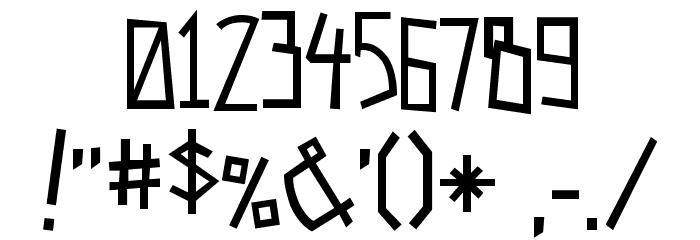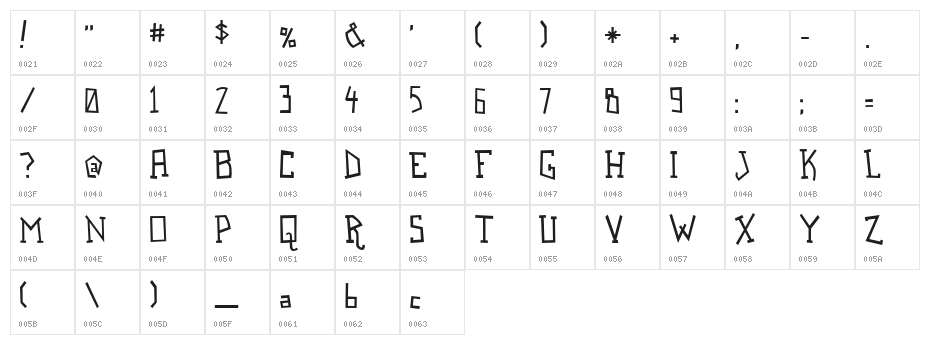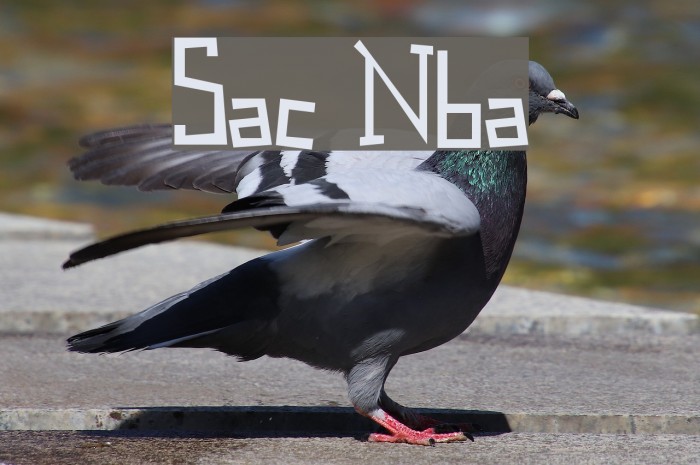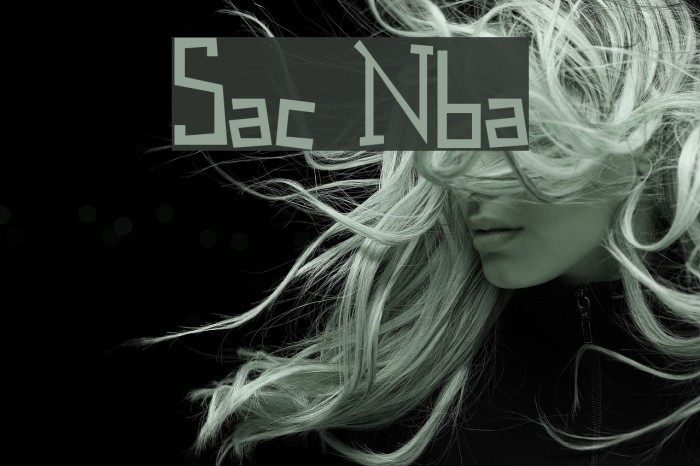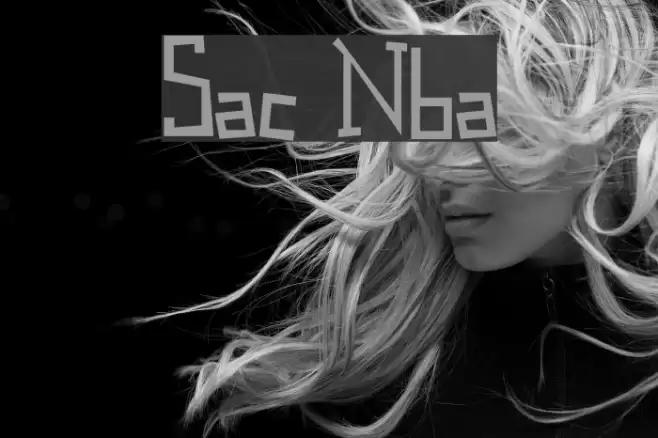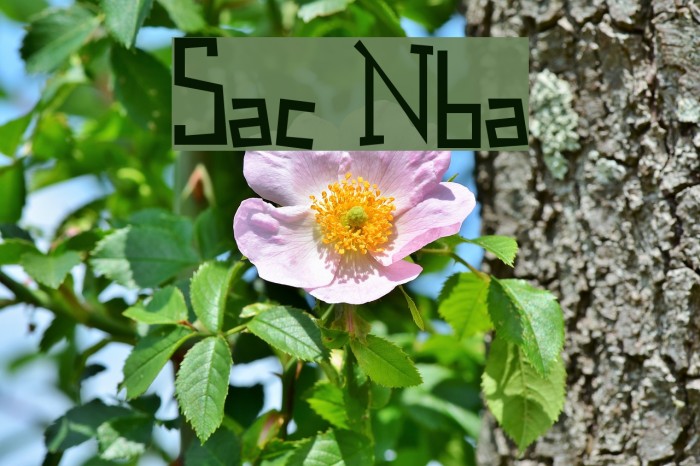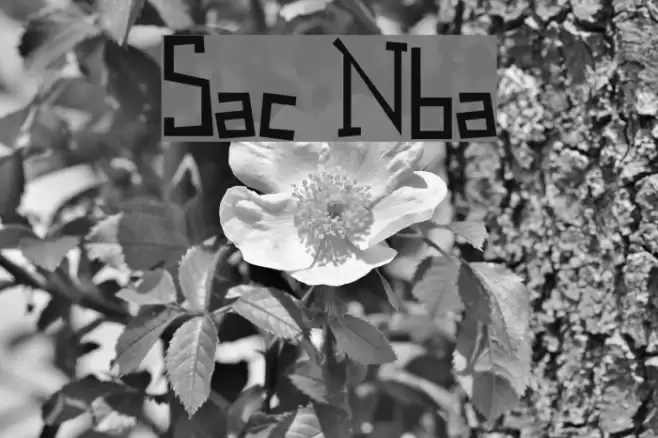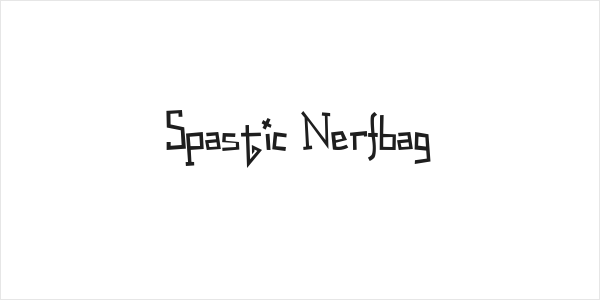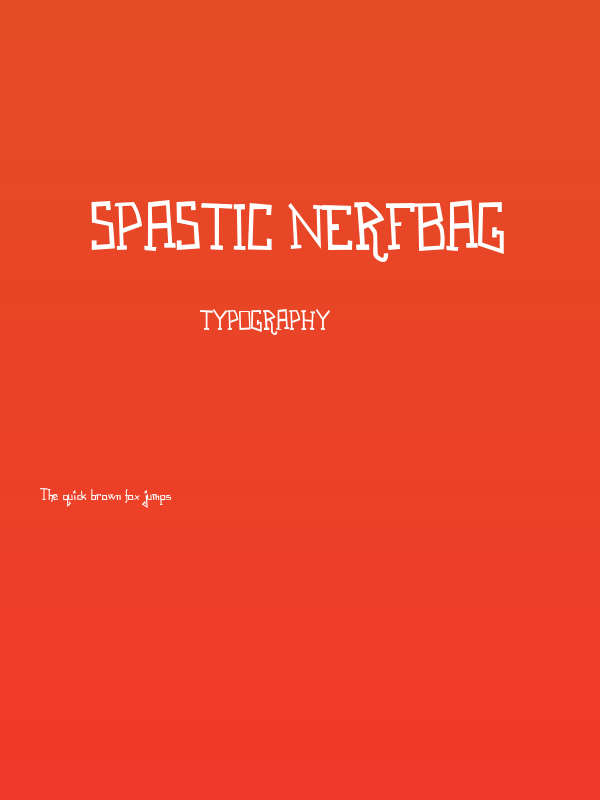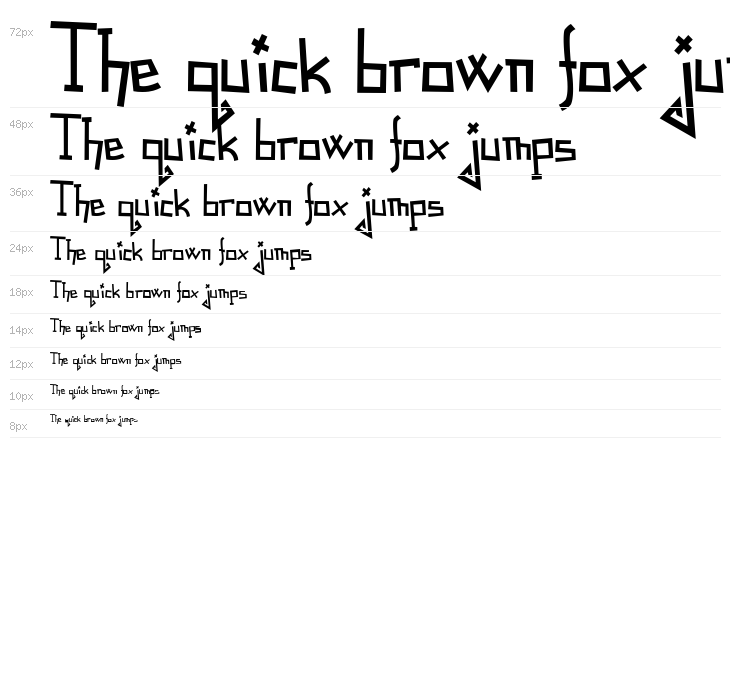
Spastic Nerfbag Font
Spastic Nerfbag Description
This font features a unique and playful design with irregular, angular shapes that give it a quirky and dynamic appearance. The characters are bold and have a hand-drawn feel, with varying line thicknesses that add to its whimsical nature. The uppercase and lowercase letters maintain a consistent style, while the numbers and special characters complement the overall aesthetic. This font stands out with its distinctive, almost cartoonish quality, making it ideal for creative projects that require a fun and unconventional look.
| Overall Style | Playful, Quirky, Hand-drawn |
| Proposed Projects | Ideal for children's book covers, playful posters, comic strips, and creative branding projects. |